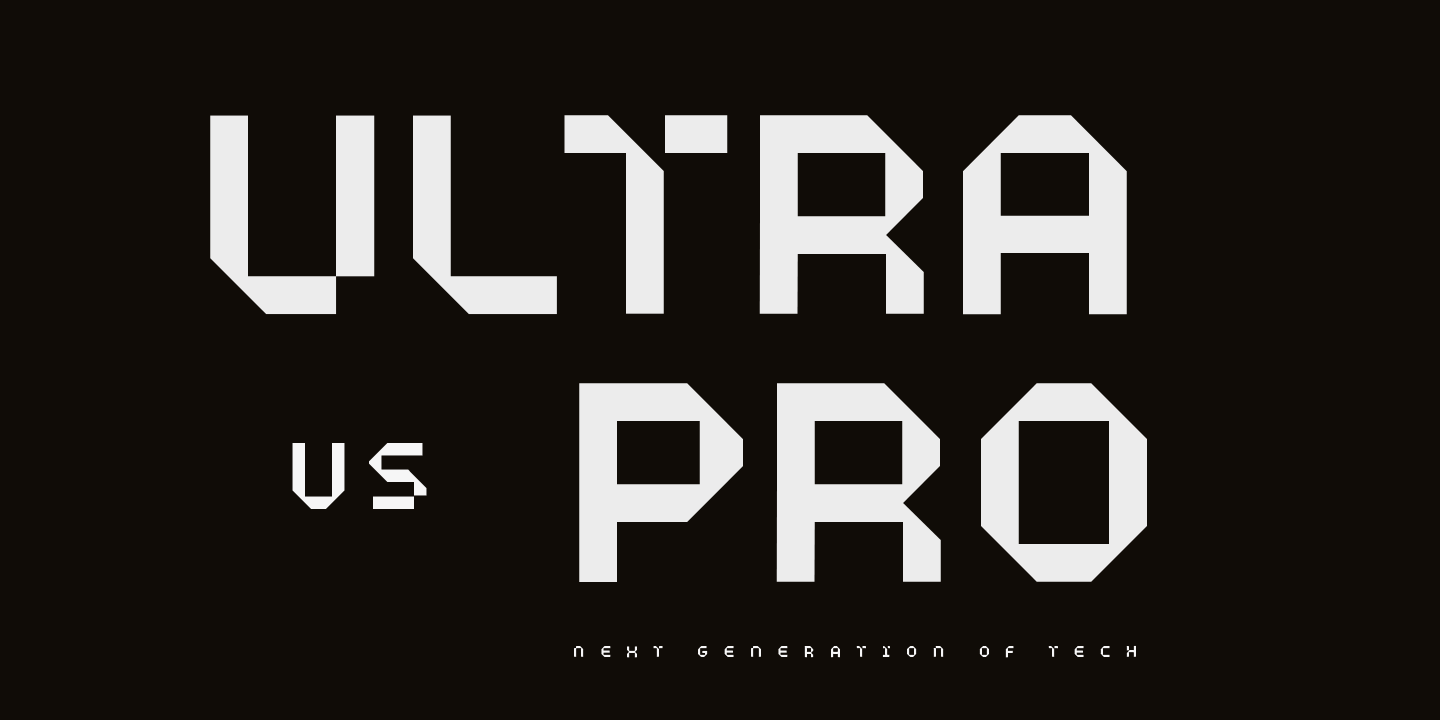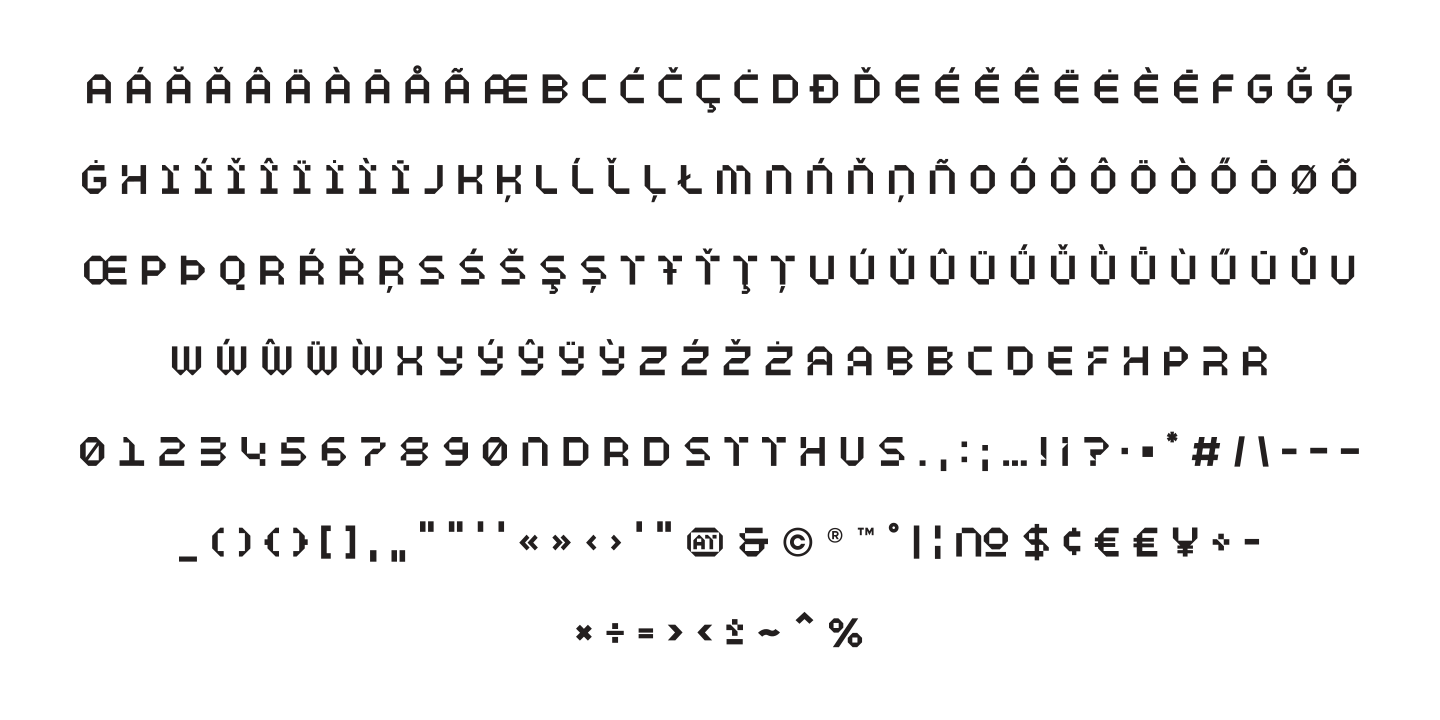
A graphic design presentation slide with the title 'TINYTYPE' in large, stylized white font on a black background. Smaller text at the top says 'Arkitype Presents.' Additional descriptive text at the bottom explains the font's design purpose.
A character set sheet of a pixelated, blocky font featuring uppercase and lowercase letters with accents, numbers, punctuation, and special symbols.
Illustration of the number 1 in a pixelated style, with the word 'NUMERALS' at the top and a sequence of numbers from 1 to 9 on the right, as well as a zero and sequence of digits from 0 to 9 at the bottom right.
Black background with large, white, pixelated text reading 'ULTRA PRO' and smaller text 'vs' and 'NEXT GENERATION OF TECH' at the bottom.
Text that reads "Augmented Reality" in light gray and "Artificial Intelligence" in black on a gray background.
Black padded envelope with white TEKOPS label, gray TEKOPS folder, and white business card with TEKOPS logo and contact information.
Text with stylized, digital-looking font that reads 'TECHNICALLY SUPERIOR' in white on black background.
Digital display showing alternate pixelated letters from A to R, with the word 'ALTERNATES' in the top left corner.
Two posters with bold, blocky text. The left poster says "THE AI CODE" and the right poster says "AI EXPERT." Both posters have additional smaller text at the bottom and along the sides, mentioning Artificial Intelligence, Artifical Intelligence, lea
Stylized black text on a light background reads 'SPEC' in large font, with 'HIGH SPEED TECH' in smaller font underneath, followed by 'CATCH' and '105' in large font.
Three smartphones displaying different screens: the left phone shows the word 'SOLUTION' vertically, the middle phone displays numerical data, and the right phone shows the word 'CODE' vertically.
A collection of white pixelated symbols and currency signs on a black background, including dollar, euro, yen, and percentage symbols.
Close-up of metallic 3D letters spelling 'EXPERIENCE' against a black background.
Text image with the words 'HACKATHON', 'SCIENCE FICTION', and 'BEYOND TESTING' written in a pixelated font on a black background.
A graphic design presentation slide with the title 'TINYTYPE' in large, stylized white font on a black background. Smaller text at the top says 'Arkitype Presents.' Additional descriptive text at the bottom explains the font's design purpose.
A character set sheet of a pixelated, blocky font featuring uppercase and lowercase letters with accents, numbers, punctuation, and special symbols.
Illustration of the number 1 in a pixelated style, with the word 'NUMERALS' at the top and a sequence of numbers from 1 to 9 on the right, as well as a zero and sequence of digits from 0 to 9 at the bottom right.
Black background with large, white, pixelated text reading 'ULTRA PRO' and smaller text 'vs' and 'NEXT GENERATION OF TECH' at the bottom.
Text that reads "Augmented Reality" in light gray and "Artificial Intelligence" in black on a gray background.
Black padded envelope with white TEKOPS label, gray TEKOPS folder, and white business card with TEKOPS logo and contact information.
Text with stylized, digital-looking font that reads 'TECHNICALLY SUPERIOR' in white on black background.
Digital display showing alternate pixelated letters from A to R, with the word 'ALTERNATES' in the top left corner.
Two posters with bold, blocky text. The left poster says "THE AI CODE" and the right poster says "AI EXPERT." Both posters have additional smaller text at the bottom and along the sides, mentioning Artificial Intelligence, Artifical Intelligence, lea
Stylized black text on a light background reads 'SPEC' in large font, with 'HIGH SPEED TECH' in smaller font underneath, followed by 'CATCH' and '105' in large font.
Three smartphones displaying different screens: the left phone shows the word 'SOLUTION' vertically, the middle phone displays numerical data, and the right phone shows the word 'CODE' vertically.
A collection of white pixelated symbols and currency signs on a black background, including dollar, euro, yen, and percentage symbols.
Close-up of metallic 3D letters spelling 'EXPERIENCE' against a black background.
Text image with the words 'HACKATHON', 'SCIENCE FICTION', and 'BEYOND TESTING' written in a pixelated font on a black background.